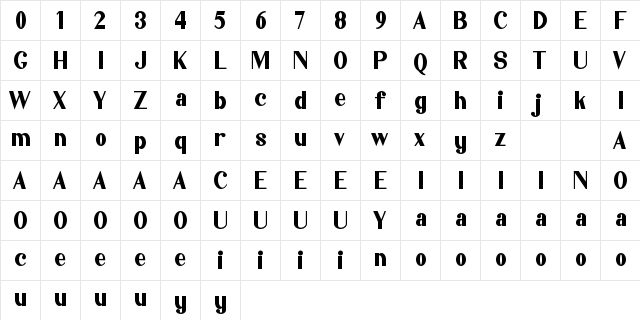
Jahasyah Regular
| Designer | AmruID |
Design Context for Jahasyah Typeface
Jahasyah is a composed and adaptable typeface that performs quietly and consistently across a wide range of design contexts.